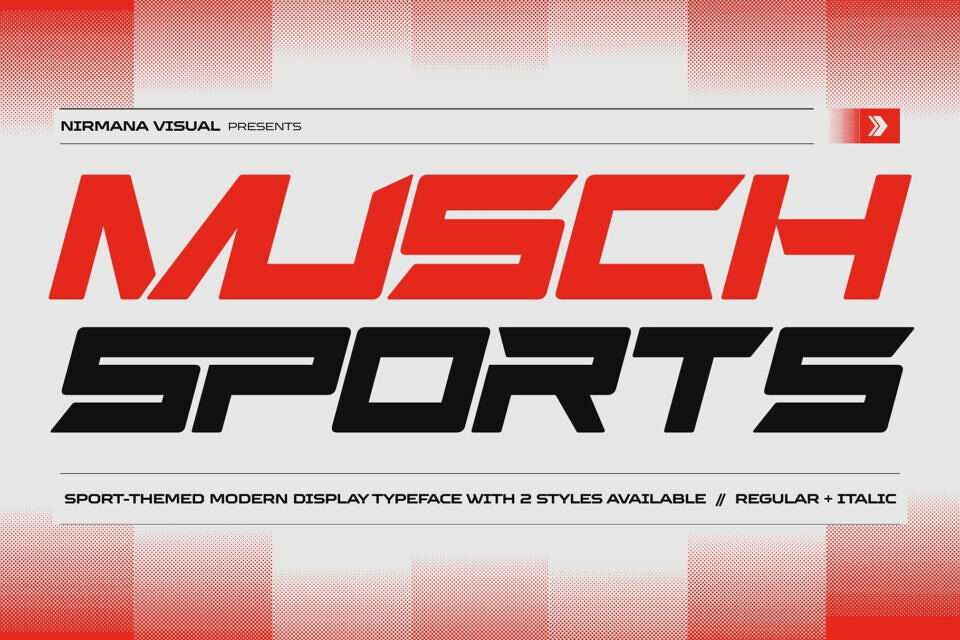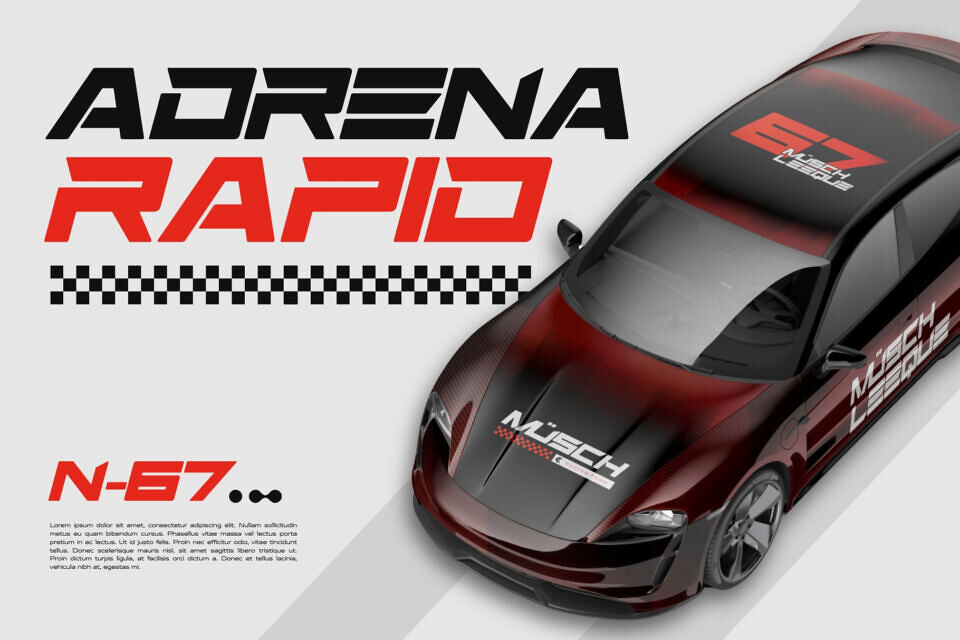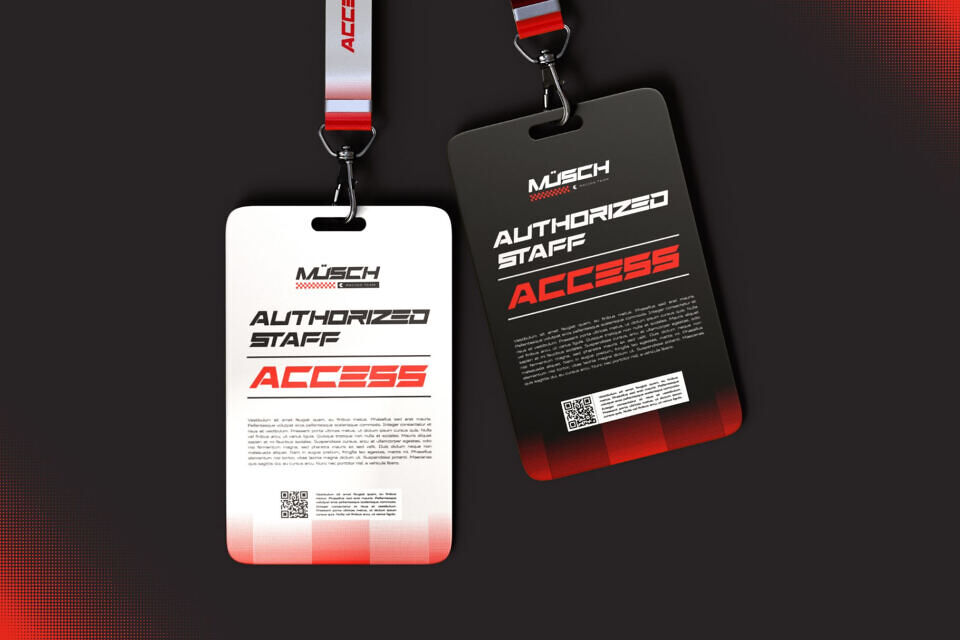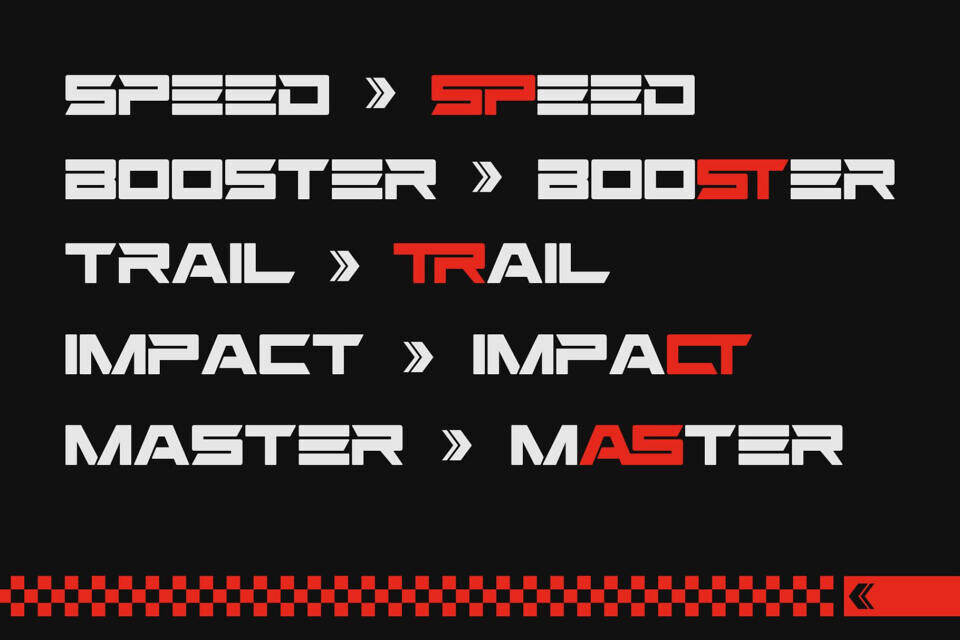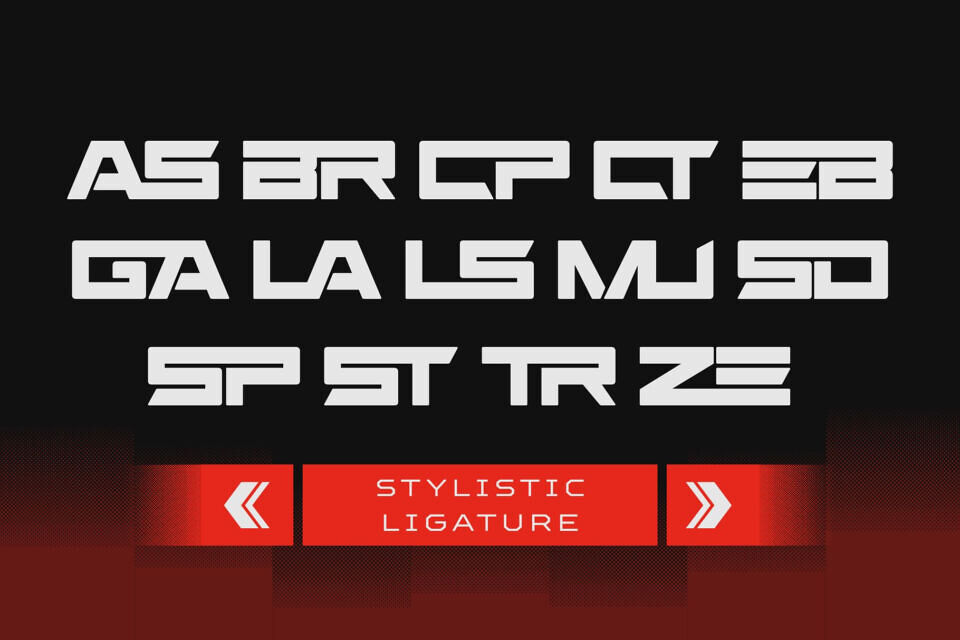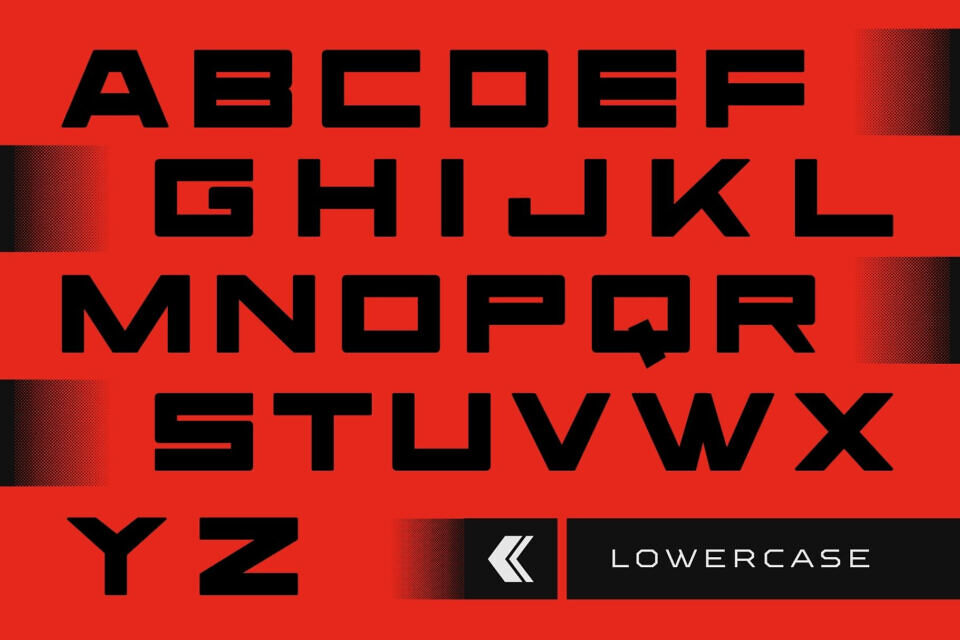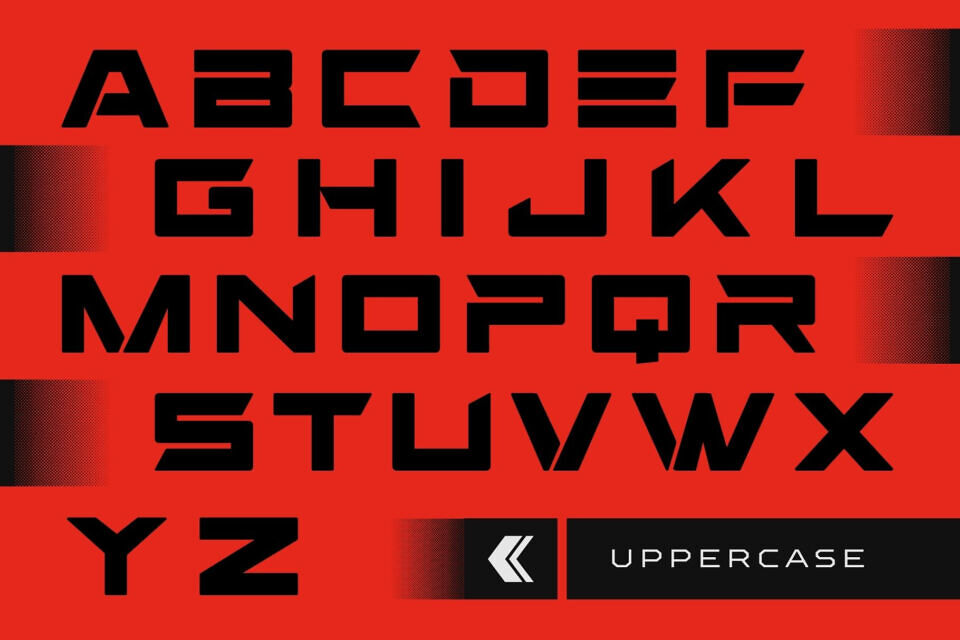
Musch Sports Font
Musch Sports offers beautiful typographic harmony for a diversity of design projects, including logos & branding, social media posts, advertisements & product designs.
Designed by: Nirmana Visual